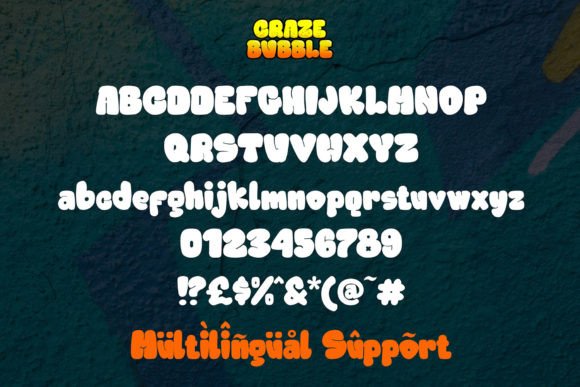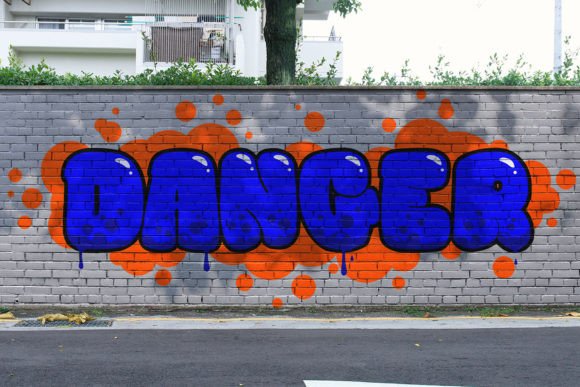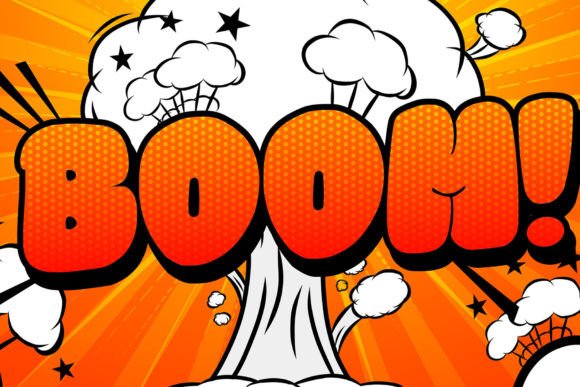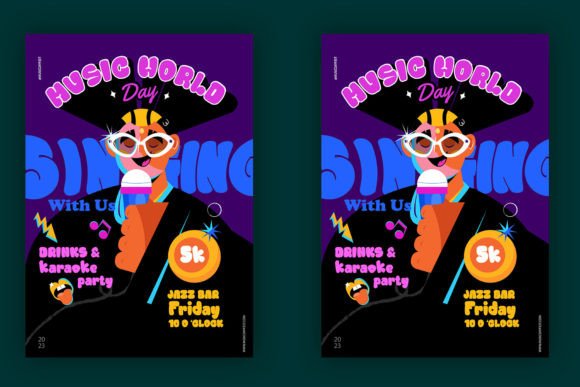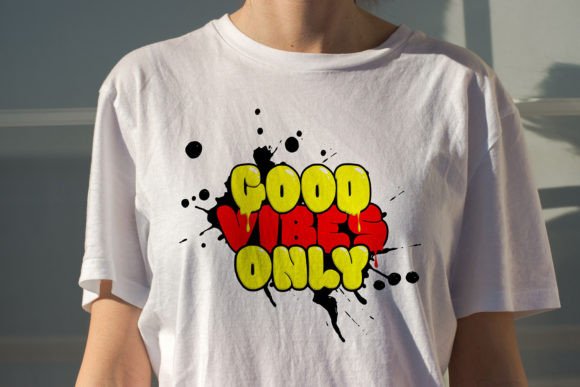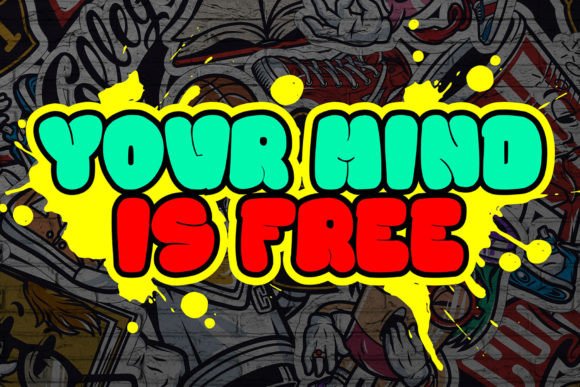
Craze Bubble Font: Add an Edgy Touch to Your Designs
Are you looking for a font that can add a bold and edgy touch to your designs? Look no further than the Craze Bubble font. This urban graffiti font is characterized by its unique bubble edges and bold look, making it perfect for music posters, apparel designs, shirts, and streetwear.
What is Craze Bubble Font?
Craze Bubble is an urban graffiti font that is designed to bring a touch of edginess to your projects. Its unique style is inspired by the streets, making it ideal for designers who want to create a strong and powerful statement. The font features bubble edges that give it a distinctive look, setting it apart from other fonts.
Key Features of Craze Bubble Font
- Unique Bubble Edges: The Craze Bubble font features unique bubble edges that give it a distinctive look.
- Bold Look: The font has a bold look that makes it perfect for creating eye-catching designs.
- Urban Graffiti Style: The font is inspired by urban graffiti, making it perfect for music posters, apparel designs, and streetwear.
- Edgy Touch: The Craze Bubble font adds an edgy touch to your designs, making it perfect for designers who want to create a strong statement.
Uses of Craze Bubble Font
The Craze Bubble font is versatile and can be used in a variety of projects, including:
- Music Posters: The font is perfect for music posters, adding a bold and edgy touch to your designs.
- Apparel Designs: The Craze Bubble font is ideal for apparel designs, including t-shirts, hoodies, and other clothing items.
- Streetwear: The font is perfect for streetwear designs, adding a touch of urban graffiti style to your projects.
- Shirts: The Craze Bubble font is great for designing custom shirts, adding a bold and edgy touch to your designs.
Why Choose Craze Bubble Font?
There are several reasons why you should choose the Craze Bubble font for your designs:
- Unique Style: The font has a unique style that sets it apart from other fonts.
- Edgy Touch: The Craze Bubble font adds an edgy touch to your designs, making it perfect for designers who want to create a strong statement.
- Versatility: The font is versatile and can be used in a variety of projects, including music posters, apparel designs, and streetwear.
Tips for Using Craze Bubble Font
Here are some tips for using the Craze Bubble font:
- Use it Bold: The Craze Bubble font is designed to be used bold, so don’t be afraid to make it big and bold.
- Experiment with Colors: The font looks great in a variety of colors, so experiment with different colors to find the one that works best for your design.
- Pair it with Other Fonts: The Craze Bubble font can be paired with other fonts to create a unique look.
The Craze Bubble font is a unique and versatile font that is perfect for designers who want to add an edgy touch to their designs. Its urban graffiti style and bold look make it ideal for music posters, apparel designs, shirts, and streetwear. With its easy-to-use installation process and compatibility with a variety of projects, the Craze Bubble font is a great choice for designers of all levels.